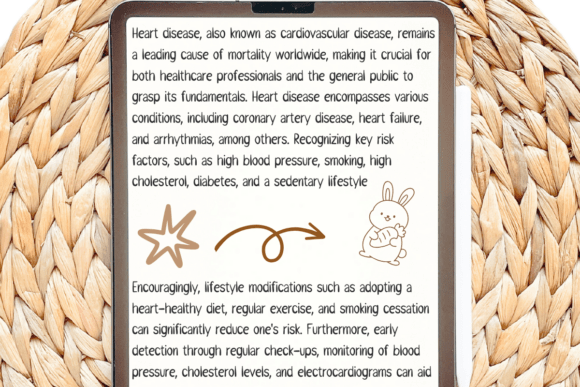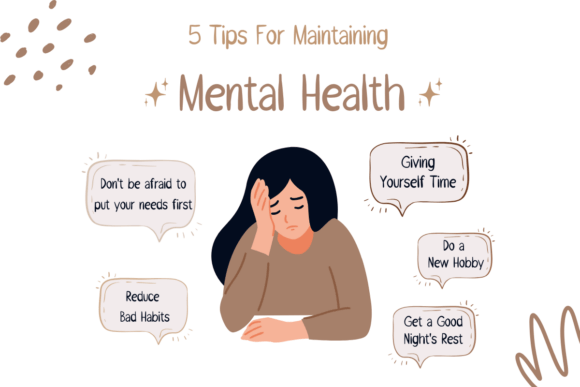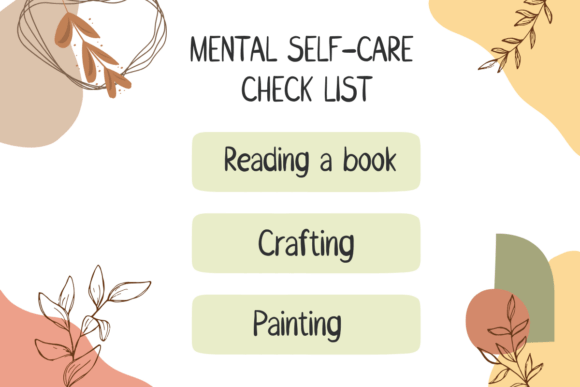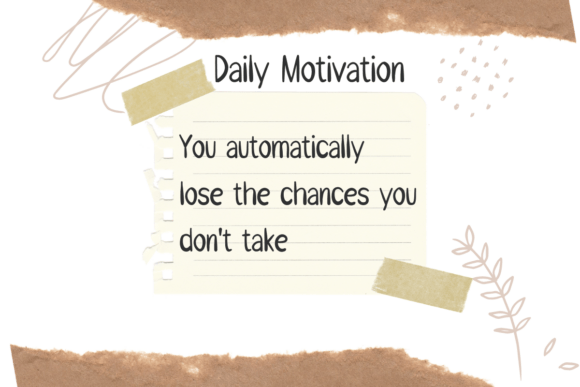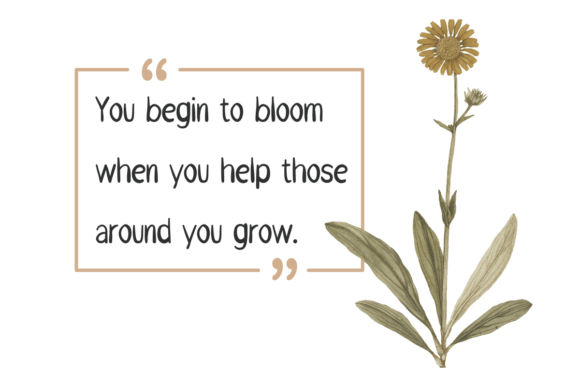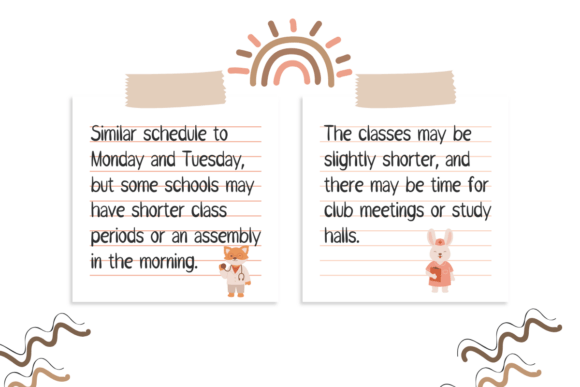
Elevate Your Designs with a Personal Touch: Introducing Doctor’s Note Font
Are you looking to add a natural and authentic handwritten touch to your designs? Look no further than the Doctor’s Note font. This realistic handwritten font is designed to capture the look of real handwriting, with smooth strokes and casual curves that will make your digital planners, journals, personal notes, invitations, logos, greeting cards, social media posts, and branding projects stand out.
A Font that Feels like Handwriting
The Doctor’s Note font is carefully crafted to mimic the imperfections and uniqueness of handwriting. Its smooth strokes and casual curves give it a natural and authentic feel that’s perfect for a wide range of design projects. Whether you’re creating digital planners, journals, or personal notes, this font will add a touch of personality and whimsy to your work.
One of the best things about the Doctor’s Note font is its versatility. It comes with uppercase, lowercase, numbers, punctuation, and multilingual support, making it suitable for both personal and professional use. This means you can use it to create a wide range of designs, from invitations and greeting cards to logos and branding projects.
Seamless Compatibility with Popular Design Platforms
The Doctor’s Note font is fully compatible with popular design platforms like Canva, Cricut, Silhouette, Photoshop, and Illustrator. This makes it easy to integrate into your existing design workflow, allowing you to focus on creating stunning designs rather than worrying about font compatibility.
With the Doctor’s Note font, the design possibilities are endless. Here are just a few ideas to get you started:
- Digital planners and journals: Add a personal touch to your digital planners and journals with the Doctor’s Note font.
- Invitations and greeting cards: Create beautiful and unique invitations and greeting cards that will make your recipients feel special.
- Logos and branding projects: Use the Doctor’s Note font to create a distinctive and memorable brand identity.
- Social media posts: Add a touch of personality to your social media posts with the Doctor’s Note font.
Why Choose the Doctor’s Note Font?
So why choose the Doctor’s Note font over other handwritten fonts? Here are just a few reasons:
- Authentic handwritten look: The Doctor’s Note font has a natural and authentic handwritten look that’s perfect for designers and crafters.
- High-quality design: The font is carefully crafted with smooth strokes and casual curves, making it perfect for a wide range of design projects.
- Versatility: The font comes with uppercase, lowercase, numbers, punctuation, and multilingual support, making it suitable for both personal and professional use.
- Seamless compatibility: The font is fully compatible with popular design platforms like Canva, Cricut, Silhouette, Photoshop, and Illustrator.
In conclusion, the Doctor’s Note font is an essential tool for designers and crafters looking to add a natural and authentic handwritten touch to their designs. With its smooth strokes, casual curves, and versatility, this font is perfect for a wide range of design projects. Its seamless compatibility with popular design platforms makes it easy to integrate into your existing design workflow. So why wait? Download the Doctor’s Note font today and start creating stunning designs that will make your audience feel special.
Whether you’re a seasoned designer or a crafter, the Doctor’s Note font is sure to become a favorite in your design arsenal. So go ahead, get creative, and bring a touch of personality to your designs with the Doctor’s Note font.